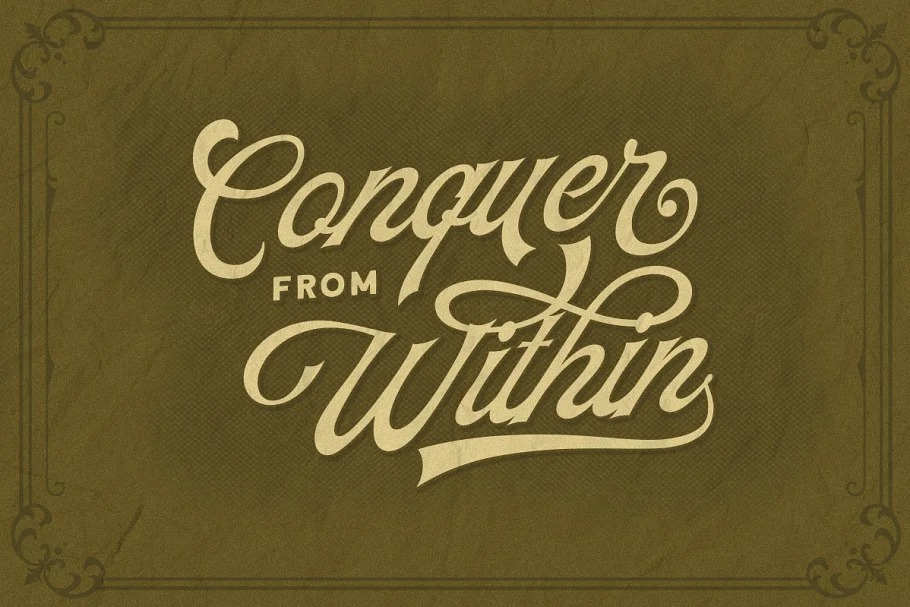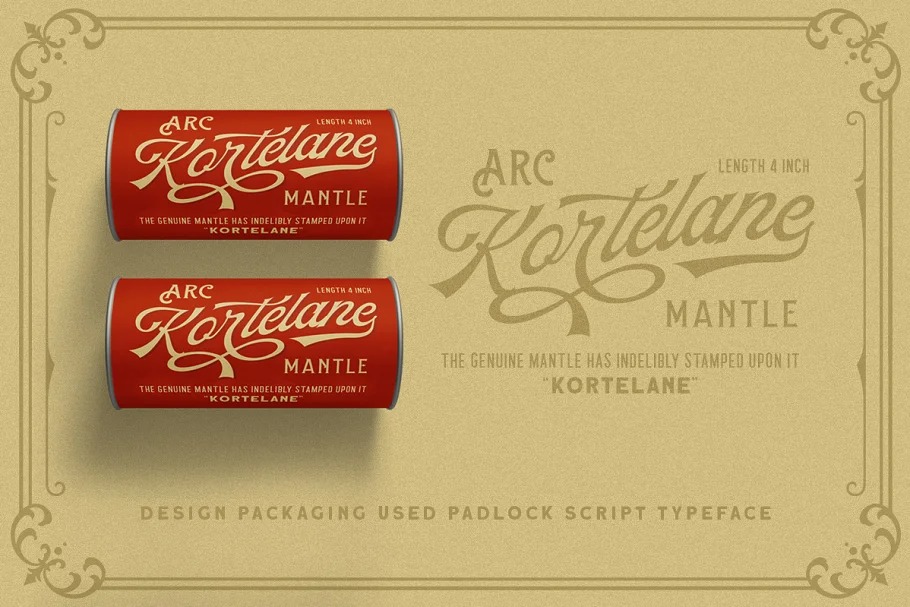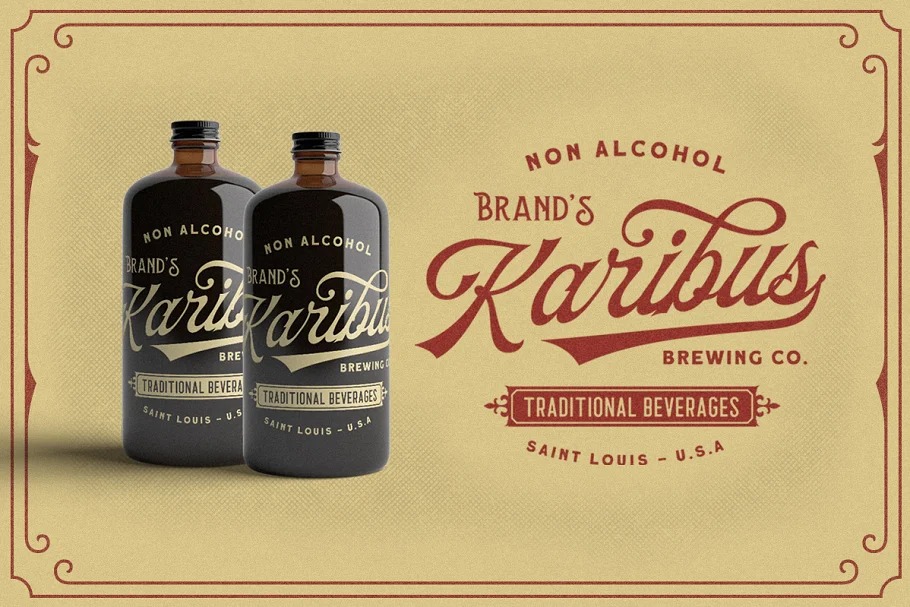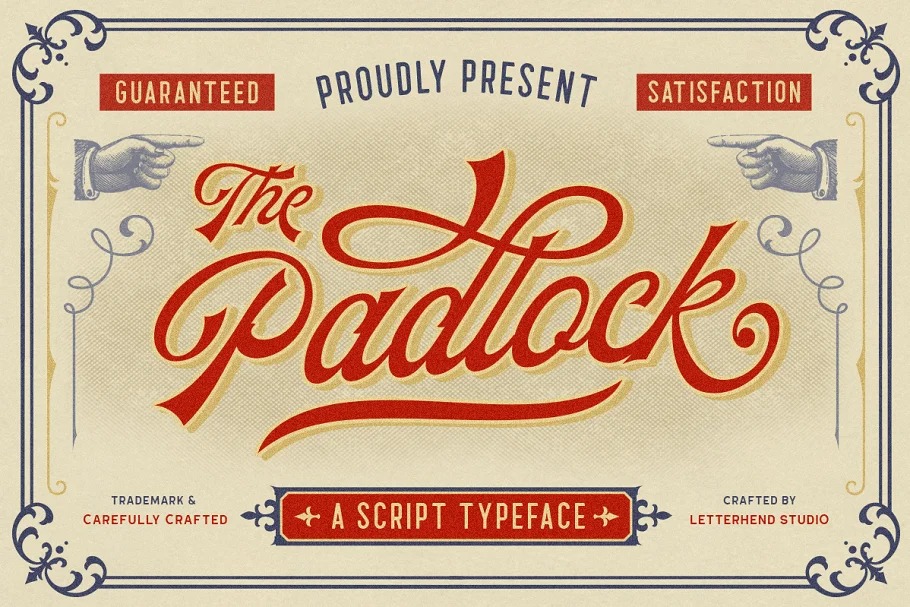
The Padlock Font
The Padlock Script Font
It’s a classic script typeface manufactured by Letterhend Studio. Made for any professional project branding. This typeface has nostalgic feel because of its style, so the font is really match for your project with retro / vintage theme. The swashes make this typeface unique even more so you can use it to create beautiful vintage lettering in a sec.
This font perfectly made to be applied especially in logo, and the other various formal forms such as invitations, labels, logos, magazines, books, greeting / wedding cards, packaging, fashion, make up, stationery, novels, labels or any type of advertising purpose.